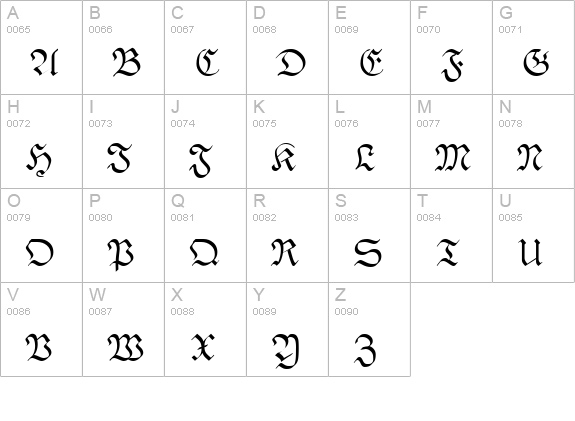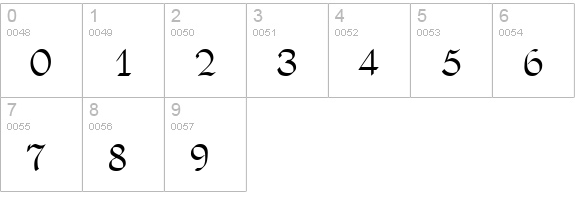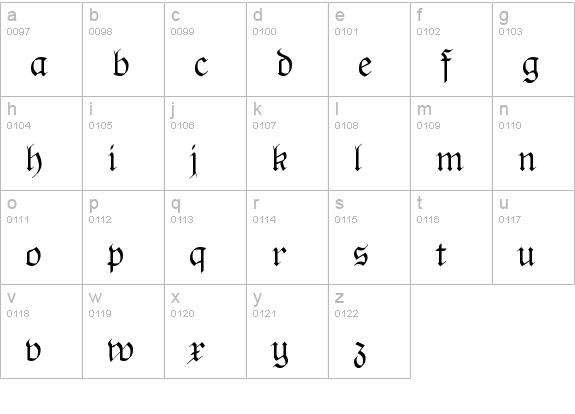
Rheingold Font Details
Rheingold font is a stunning display typeface that exudes elegance and sophistication. With its intricate details and classic appeal, this font is perfect for adding a touch of luxury to any design project. Its tall, slender letterforms are reminiscent of old-world calligraphy, making it a timeless choice for invitations, branding, and more. The best part? Rheingold font is completely free to download at FontsMarket.com, where you can easily access this exquisite typeface to elevate your creative endeavors. Add a touch of refinement to your designs with Rheingold font today!